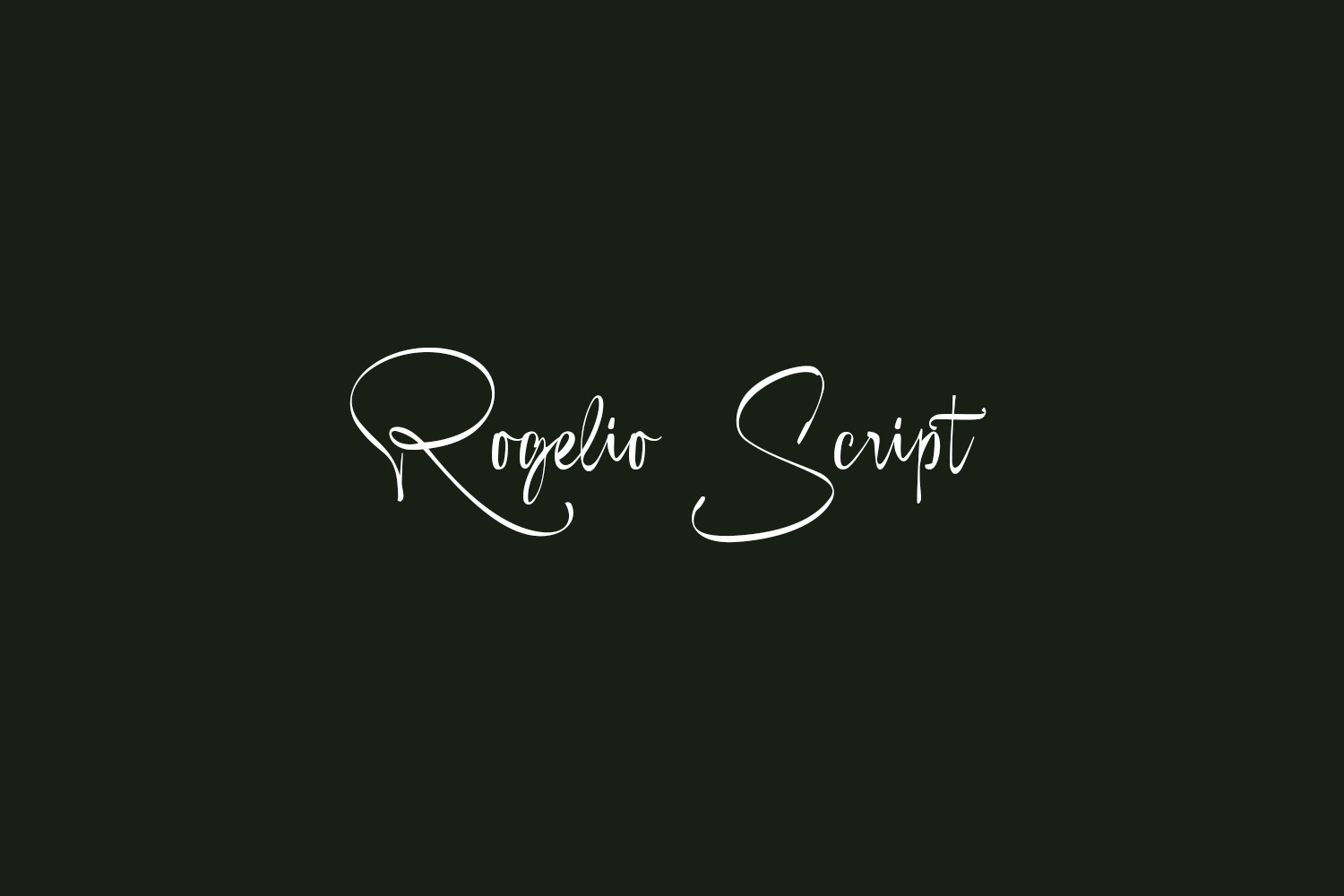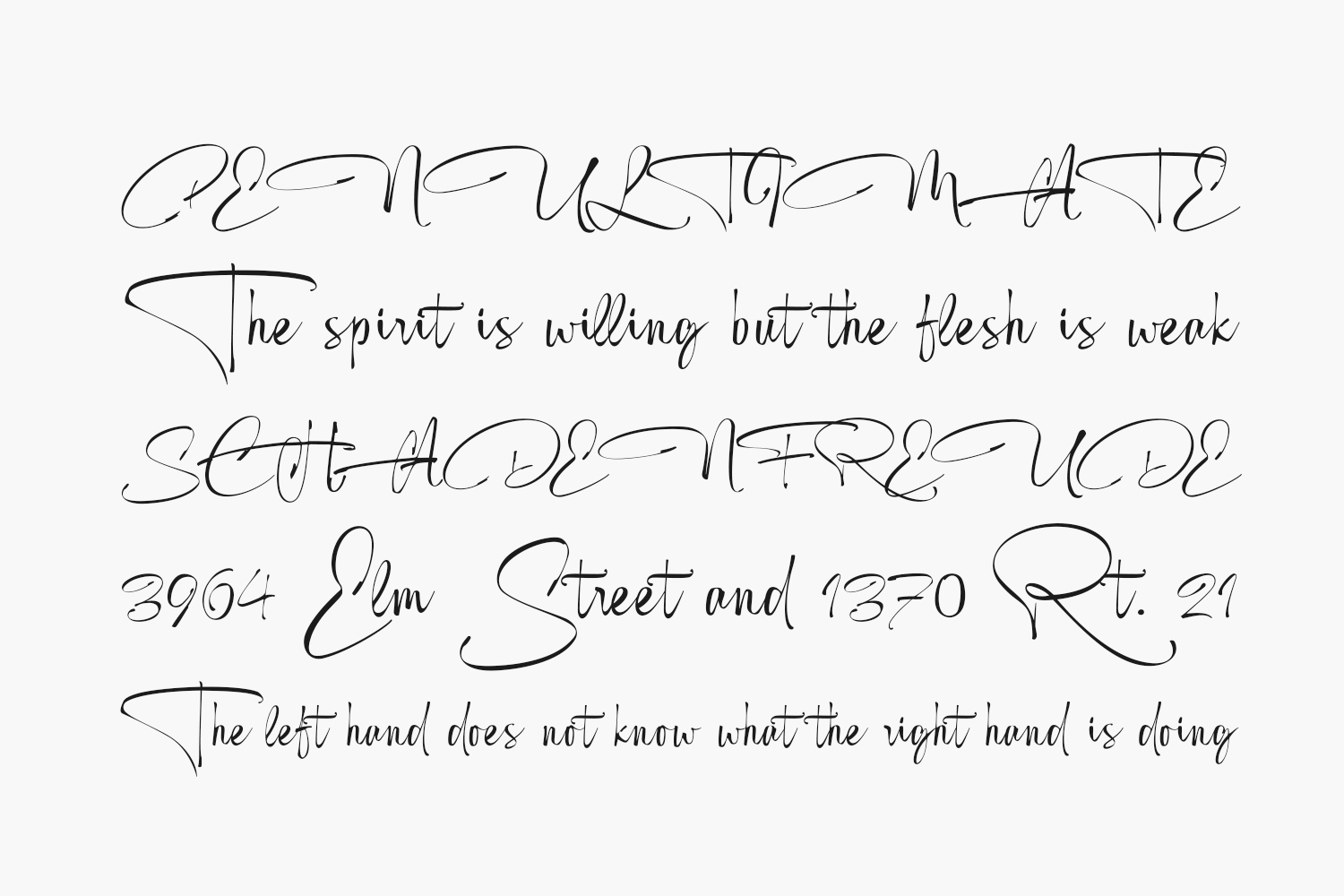
Rogelio Script Free Font is an enchanting handwritten font. This versatile script font has a wide spectrum of applications ranging from greeting cards to headlines. Rogelio Free Font is free for personal use only. Please purchase the full version for commercial use.
Designed by Joel Maker Studio